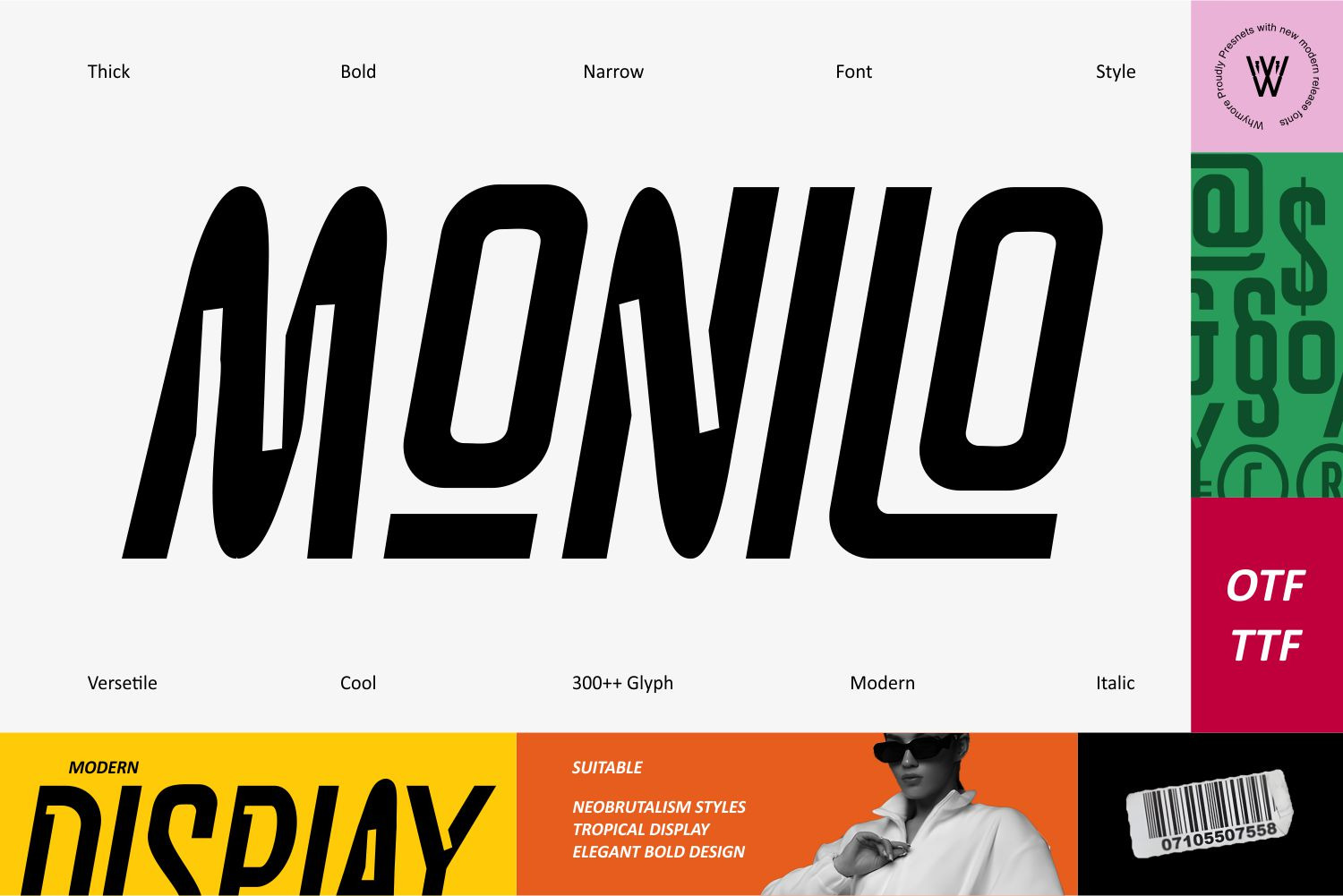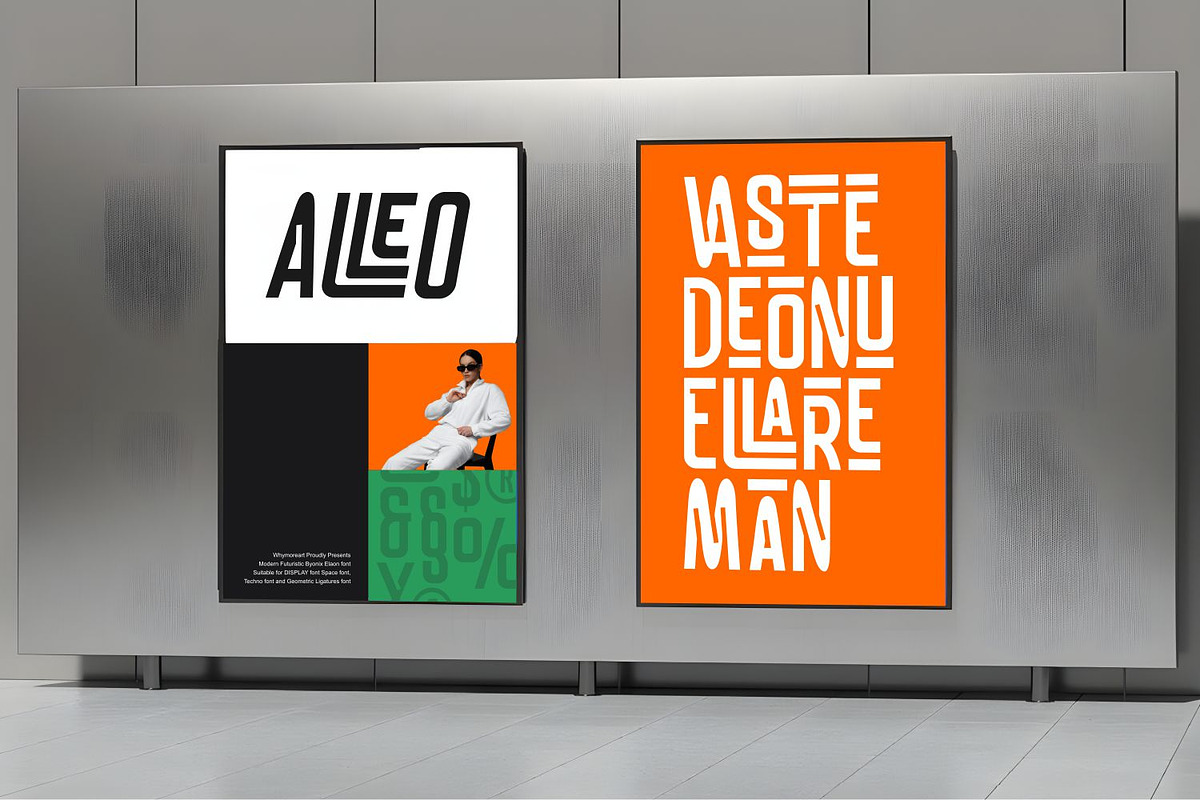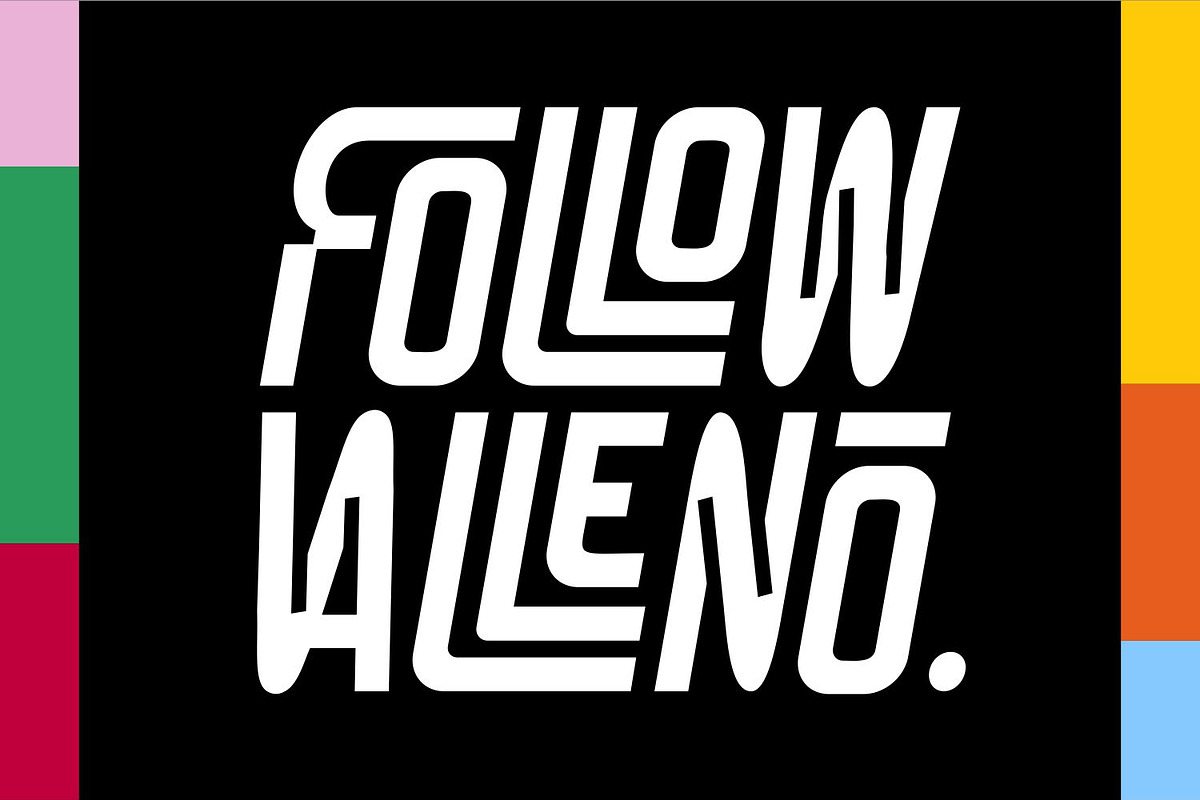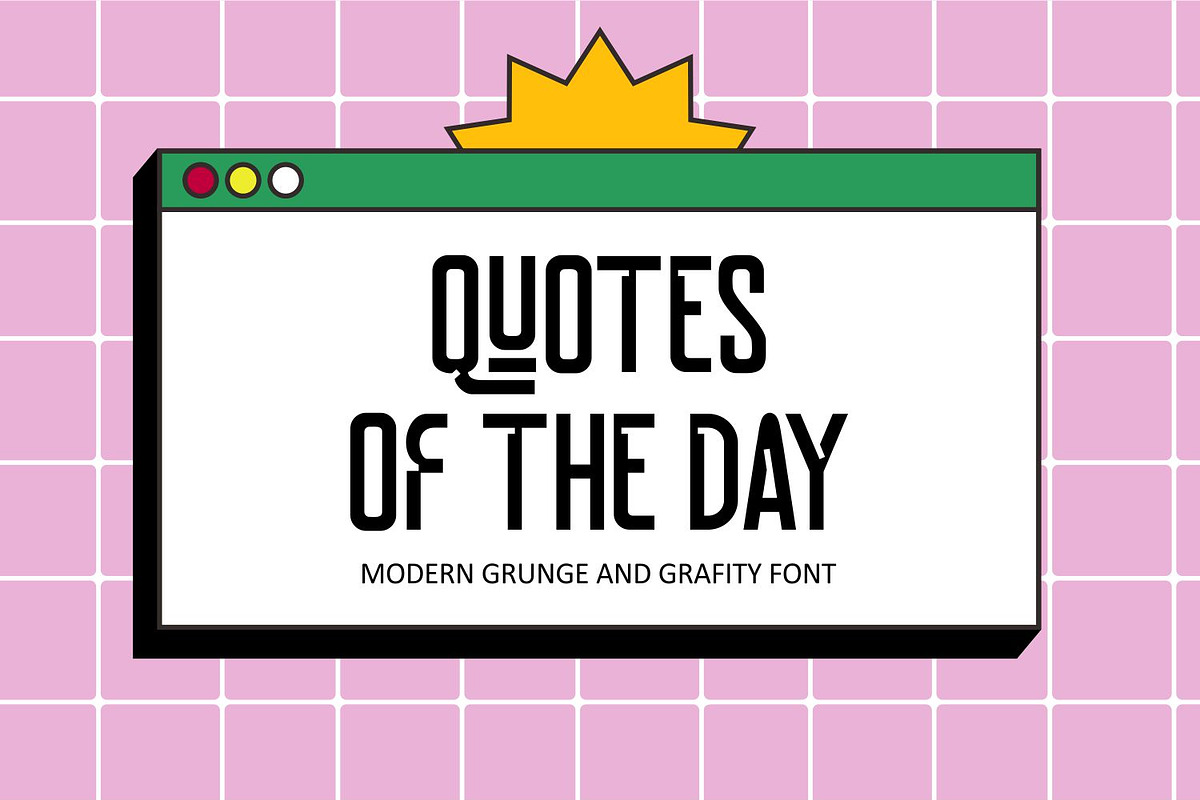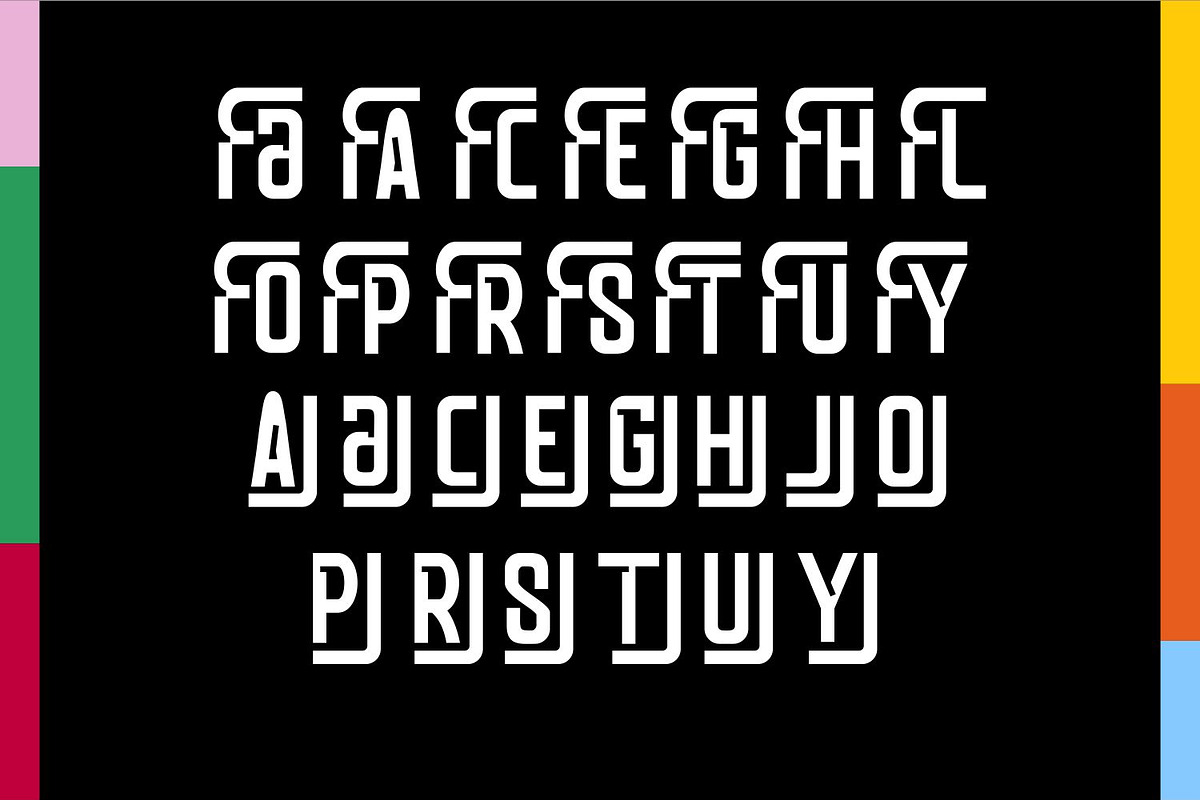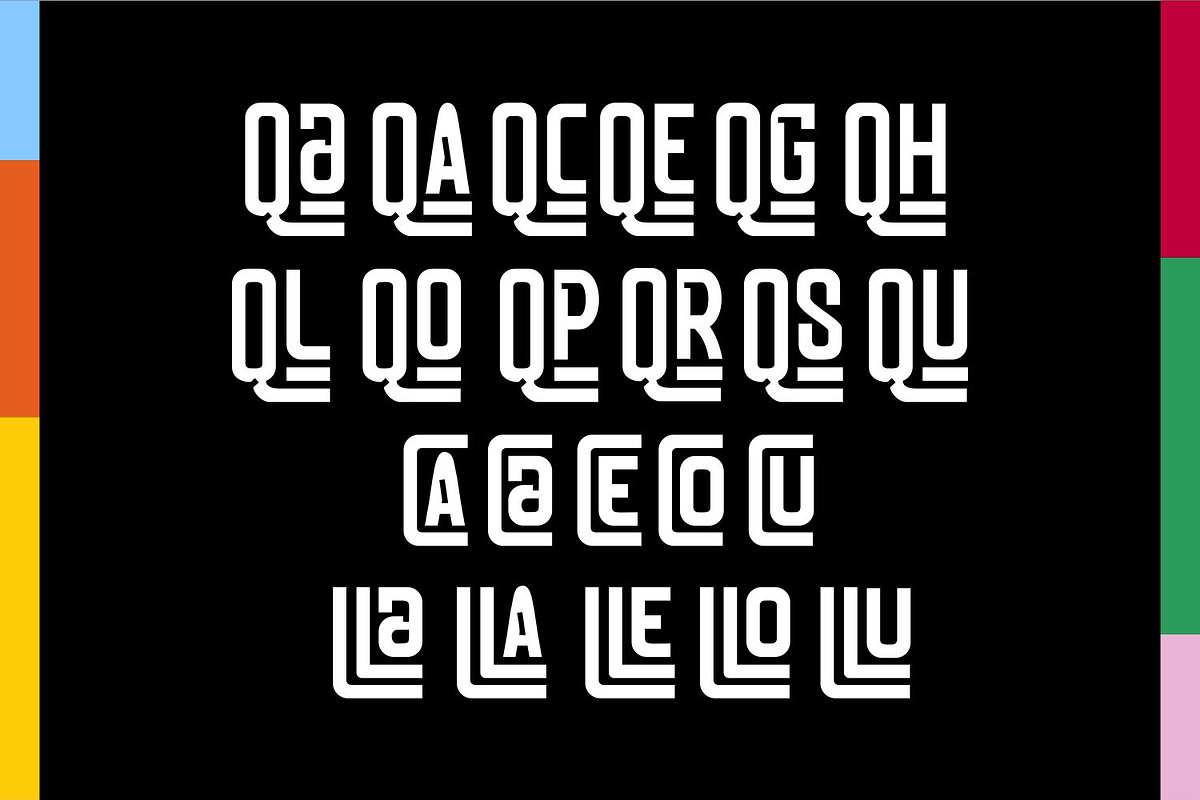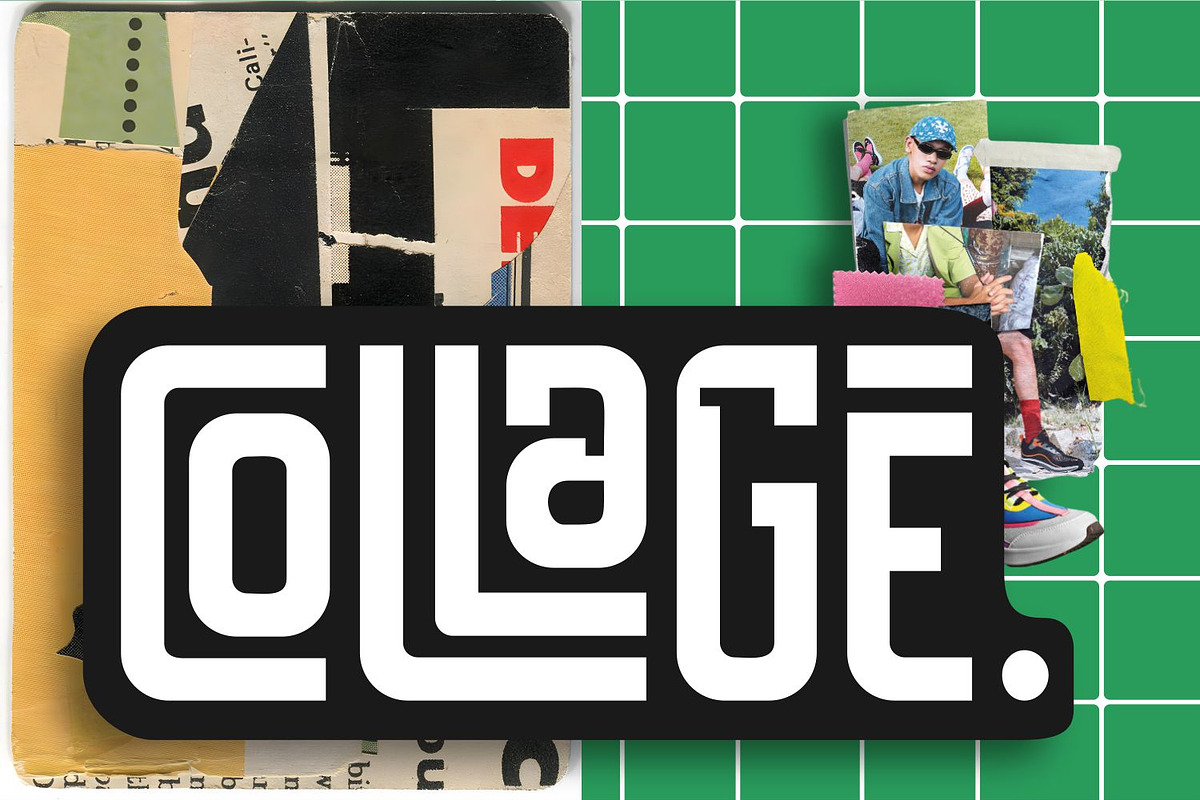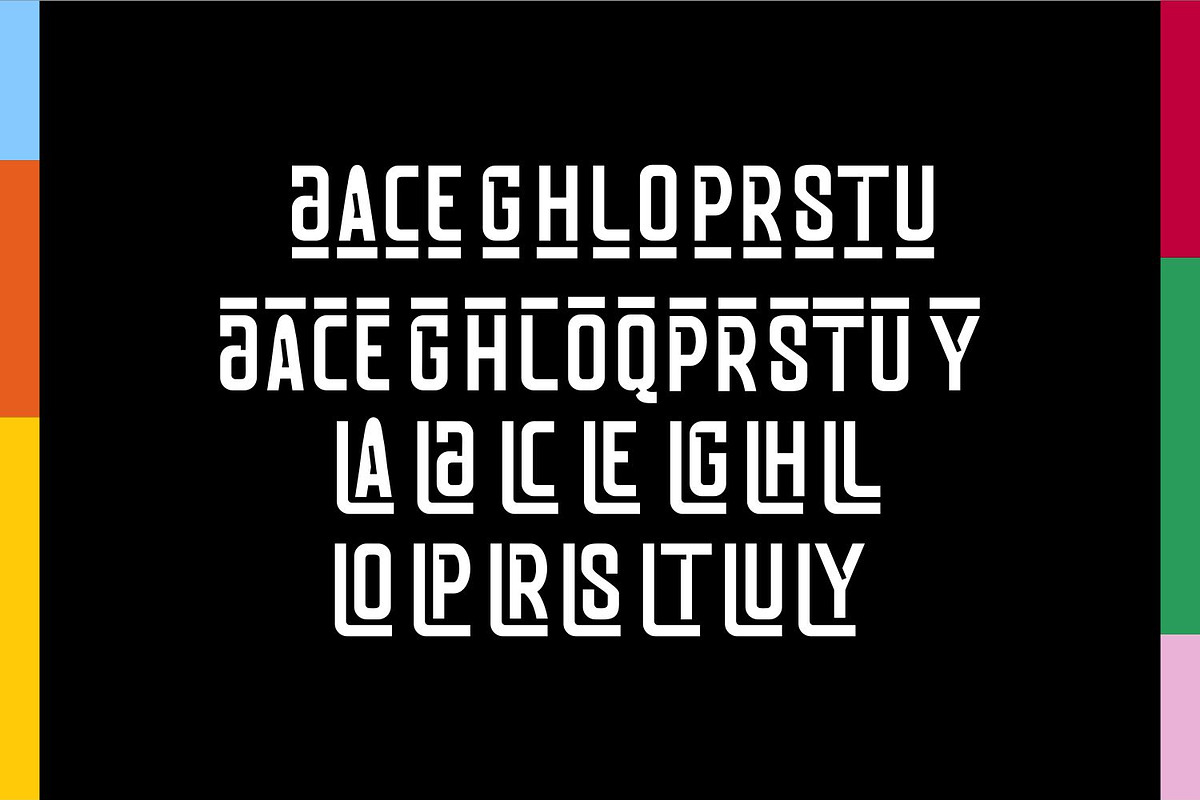
Monilo – Condensed Narrow Font
Monilo is a bold, condensed display font with a Narrow and geometric style—designed to make your typography pop in modern branding and tech-forward design. With strong lines, a narrow silhouette, and unique letter shapes, Monilo is perfect for high-impact visual projects.
Whether you're designing a technology logo, esports brand, space-inspired layout, or Y2K aesthetic artwork, Monilo adds that distinctive futuristic energy. It works great on posters, graffiti-style headlines, stationery mockups, grunge collages, and Canva designs alike.
💡 Features:
🎯 Perfect For:
Summer fashion posters Graffiti-inspired layouts Y2K and bold geometric design Display use for headlines, covers, social media
Let Monilo electrify your design journey — where Freedom bold meets graphic statement.